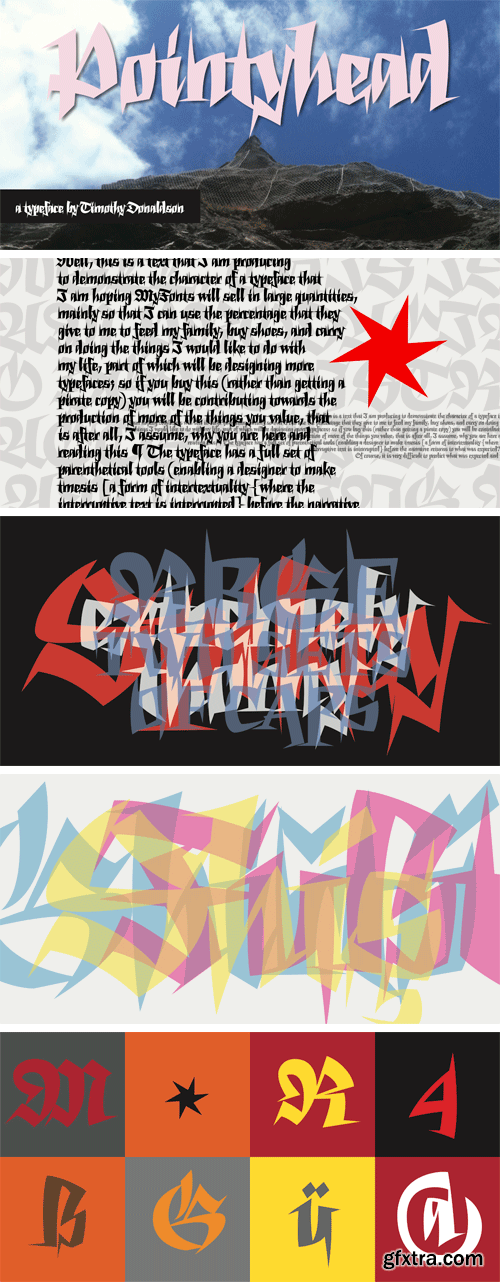
尖头字体
This typeface is an exercise in absurdity; to create the most atrociously spiky, thorny blackletter; to give it a set of roman uppers along with brutal fraktur majuscules. It’s suitable for all the usual blackletter applications: fetish, metal, beer, tattoos etc.